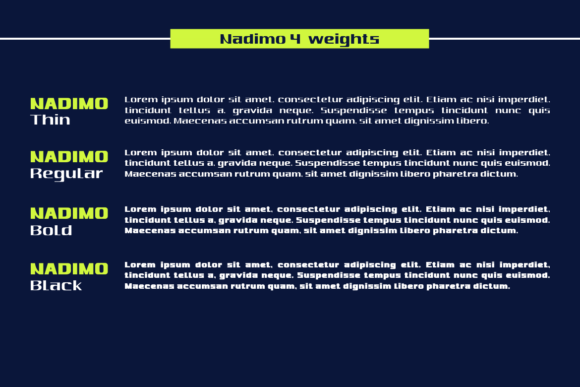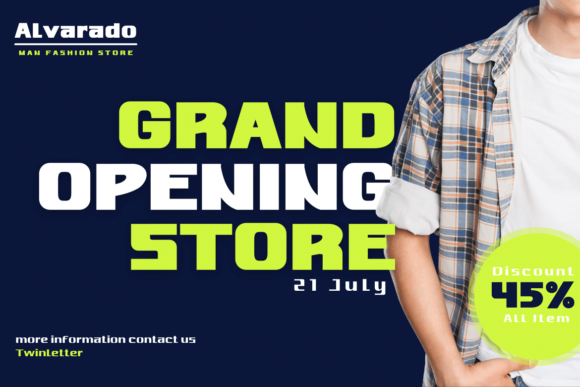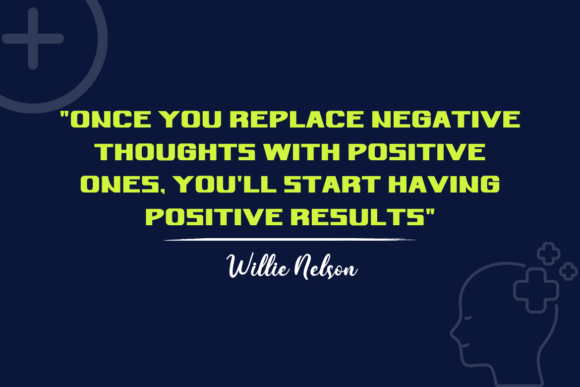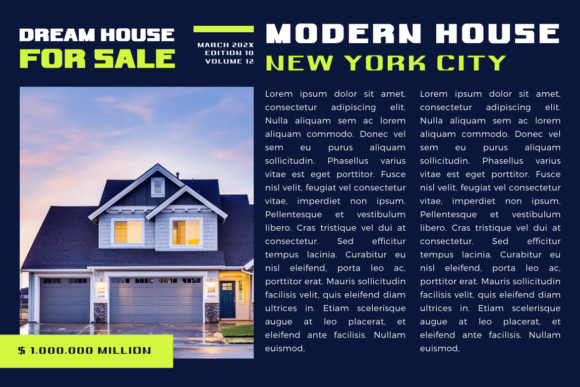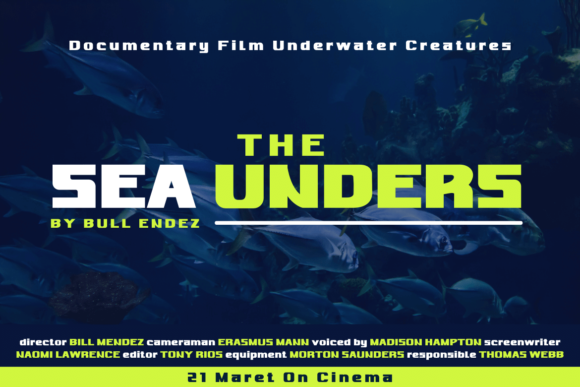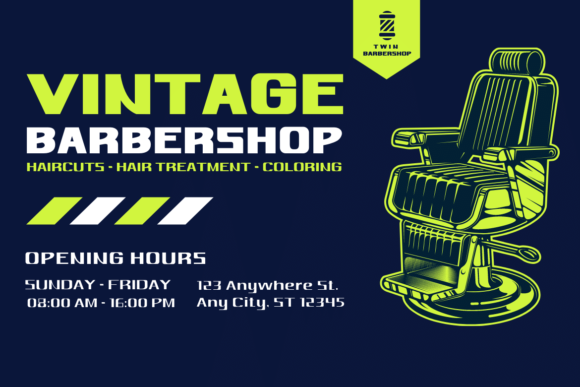
Introduction to Nadimo Font Font
Fonts play a crucial role in design, and the Nadimo Font font is a typeface that brings both character and versatility to any project. Whether you’re working on a branding project, a website, or a print design, the Nadimo Font font offers a unique style that can elevate your work.
Nadimo is an elegant, charming, and sensual sans serif font designed with subtle curves and flexible shapes to create a beautiful typeface that fits all your projects.
Whether youβre looking for a typeface for a logo, t-shirt, poster, or even a large typography installation, Nadimo is here to help .
Key Features of Nadimo Font Font
Why Choose Nadimo Font Font?
The Nadimo Font font is more than just a typeface β it’s a design tool that helps you communicate your message with style and clarity. Its unique character set and versatile design make it suitable for a wide range of applications, from elegant invitations to bold headlines.
With its carefully crafted letterforms and balanced proportions, the Nadimo Font font ensures readability and visual appeal across all mediums.
What makes Nadimo Font font special?
The Nadimo Font font stands out with its unique design, exceptional readability, and versatility across various design applications.